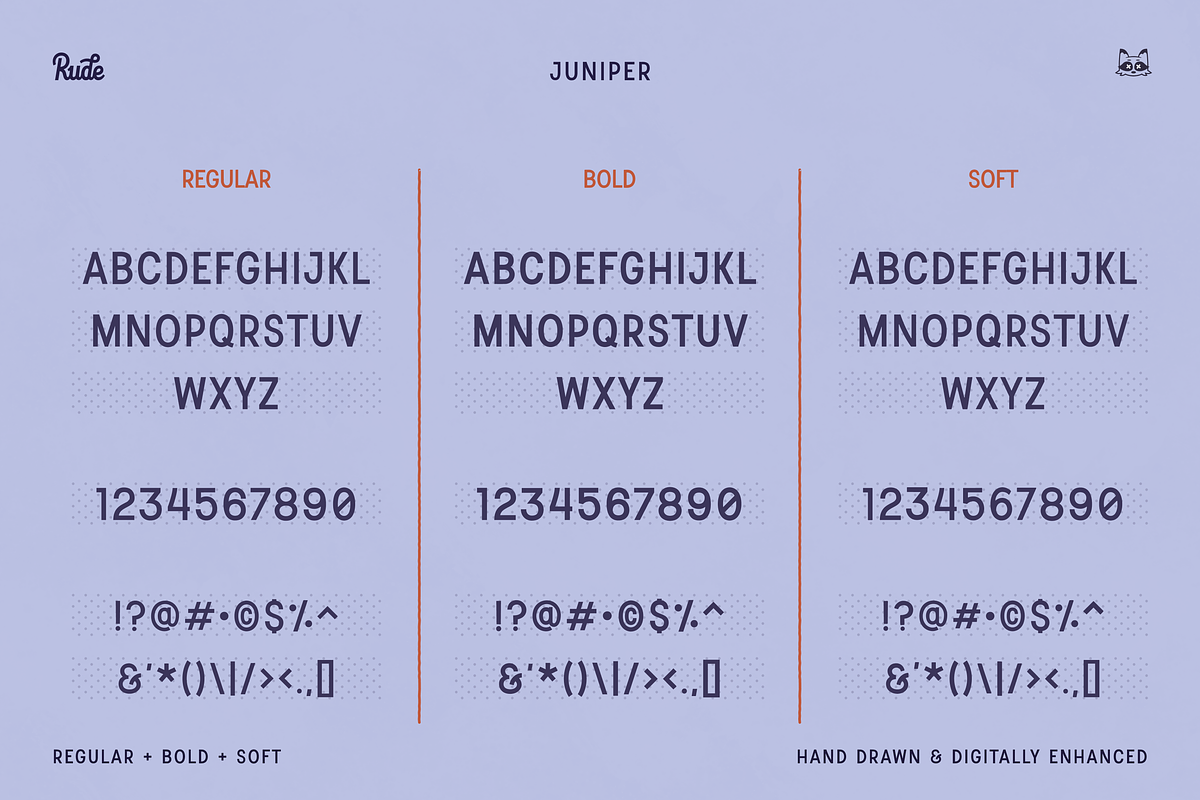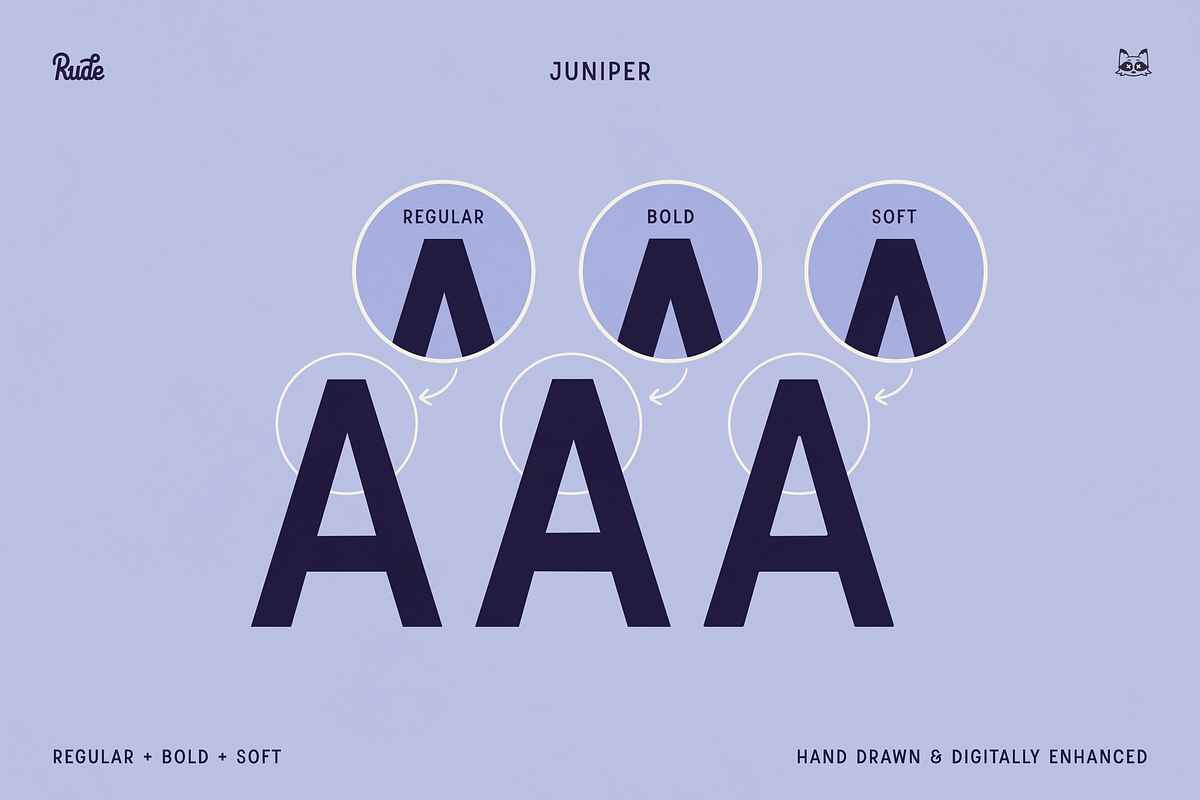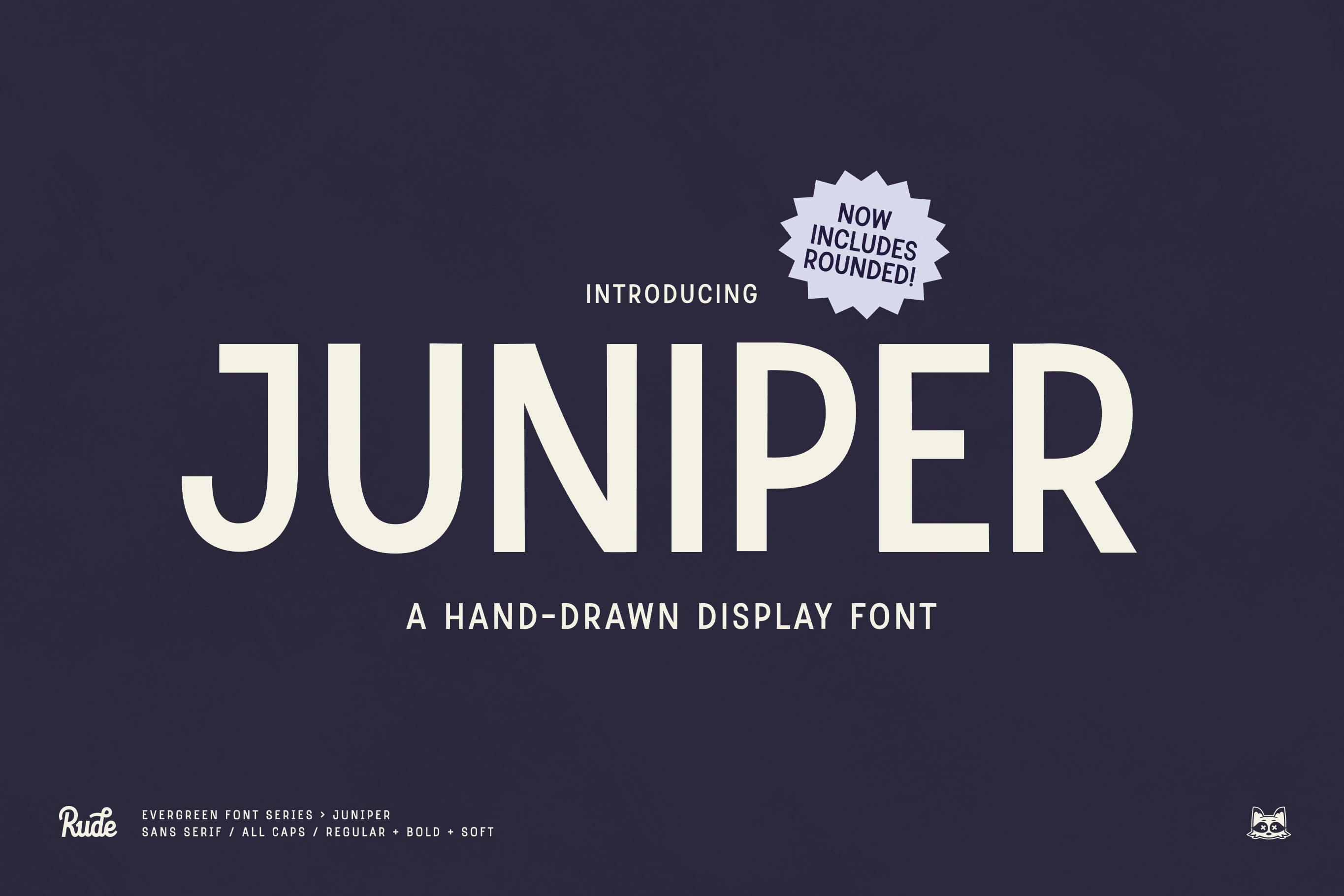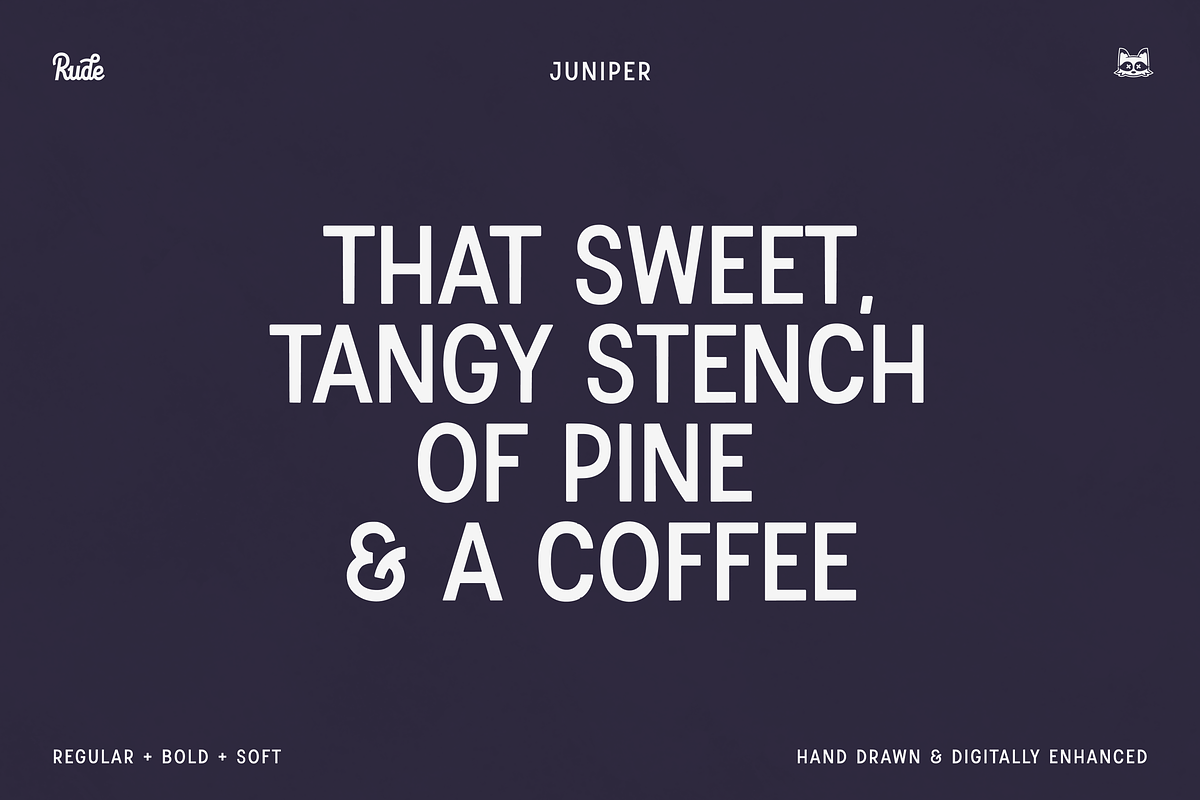
Juniper Display Font
Introducing Juniper, an all-caps sans serif font that embodies the essence of classic Americana. Inspired by vintage road signs and advertisements, Juniper infuses your designs with a nostalgic and charming touch.
Now Juniper includes a Soft/Rounded weight. I spent a lot of time refining the letterforms of bold/regular, but I missed the more natural, organic shapes and imperfections. So I have added the Soft weight that includes these charming quirks.
Each letterform is hand-drawn and digitally enhanced, ensuring a unique and visually appealing appearance.
Ideal for projects that require a vintage flair, such as:
- Posters and headlines with a nostalgic twist
- Logos that evoke a sense of heritage
- Any project where you want to make a bold and timeless statement
Take a trip down memory lane with Juniper and elevate your next project!